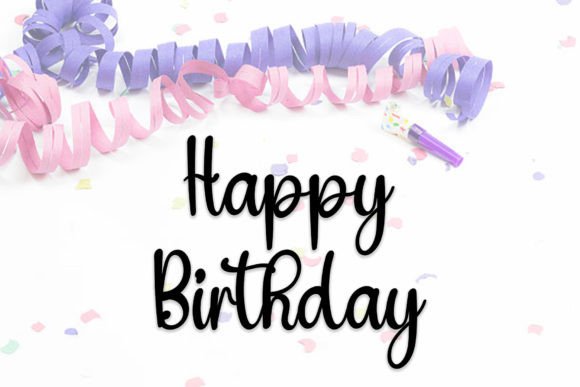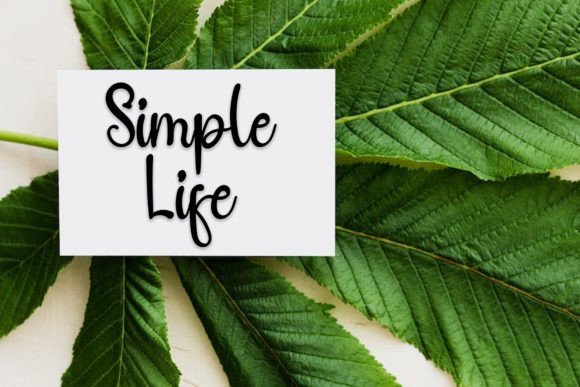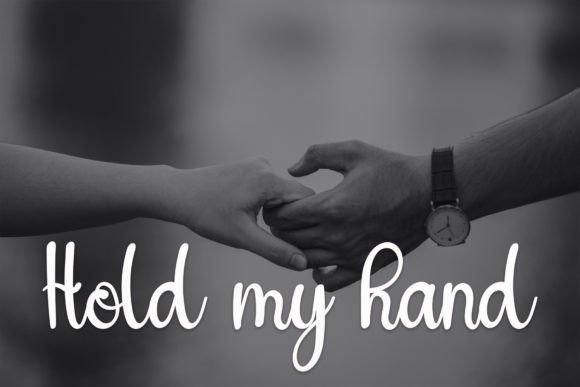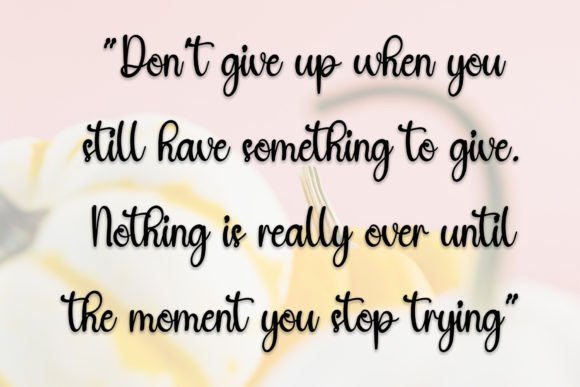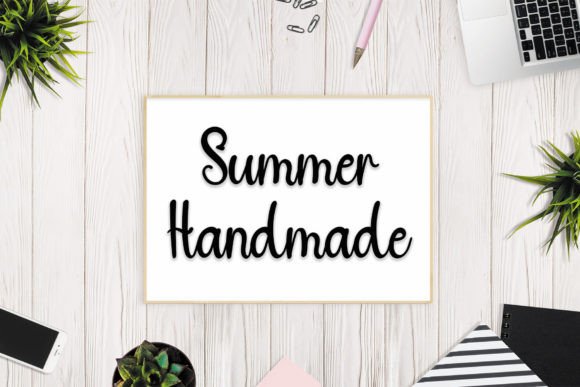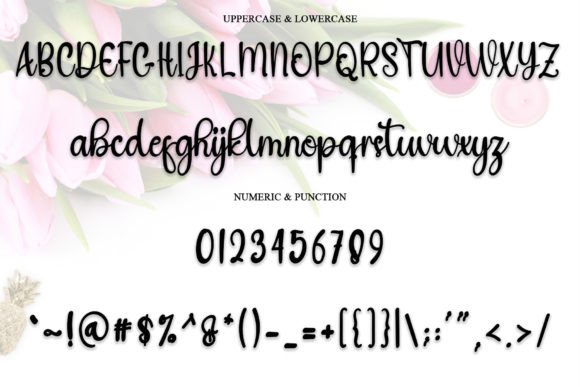
Unwrap the Magic of the Holiday Season with Barbie Sosweet Font
As you sit surrounded by twinkling lights and festive decorations, do you ever find yourself daydreaming about the perfect way to express your holiday cheer? Maybe it’s a handmade card, a personalized gift tag, or a social media post that captures the essence of the season. Whatever it is, we have just the thing to help you bring your creative vision to life: the enchanting Barbie Sosweet Font.
This delightful typeface is specifically designed to evoke the spirit of the holiday season, with its decorative elements and whimsical flair adding a touch of magic to your designs. Whether you’re a seasoned designer or a crafty enthusiast, the Barbie Sosweet Font is the perfect tool to help you create truly special projects that will be treasured for years to come.
With its PUA encoded features, you’ll have access to all the amazing glyphs and ligatures you need to make your designs truly shine. So why settle for ordinary when you can have extraordinary? Get ready to unwrap the magic of the holiday season with the Barbie Sosweet Font!
Barbie Sosweet Font Key Features
- Font Style: A sweet and playful script font, ideal for feminine designs and children’s products.
- Character Count: The font contains a total of 240 characters, including uppercase and lowercase letters, numbers, and special characters.
- Unique Characteristics: The font features a unique, hand-drawn design with subtle irregularities, giving it a personal and whimsical feel.
Barbie Sosweet Font Review
Overall, I think the Barbie Sosweet Font has some really interesting qualities that could make it a great choice for certain projects ✨. One of the things that stands out to me is the playful, whimsical feel of the font. It’s perfect for anything that needs a touch of sweetness and innocence.
- Unique and eye-catching design ✨
- Perfect for projects that need a touch of femininity and playfulness
- Can be used in a variety of contexts, from children’s media to fashion brands
However, there are also some limitations to consider ⚠️:
- Limited versatility – it may not be suitable for projects that require a more serious or professional tone
- May not be legible at smaller font sizes
- Could be seen as overly feminine or childish for some audiences
Overall, I think the Barbie Sosweet Font is a fun and interesting choice for projects that need a touch of sweetness and playfulness. However, it may not be the best choice for every project, and its limitations should be carefully considered.
The Barbie Sosweet Font is ideal for creating playful, feminine designs. Use it for:
– Baby shower invitations
– Children’s party decorations
– Fashion or beauty brand logos
– Quirky social media graphics